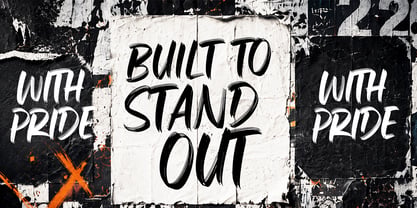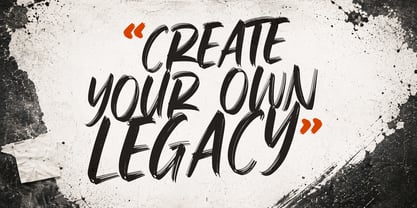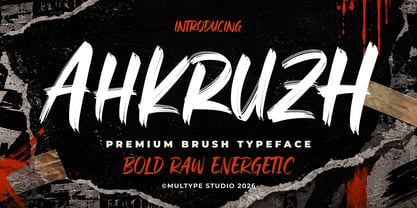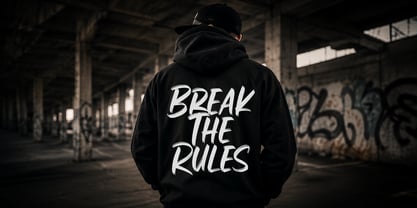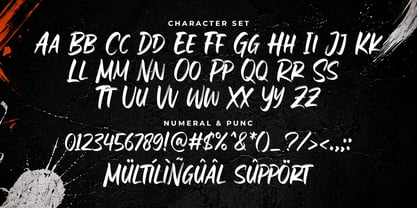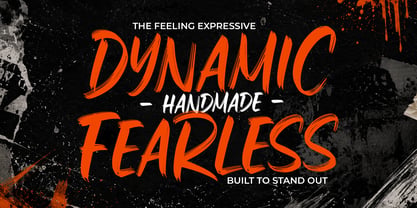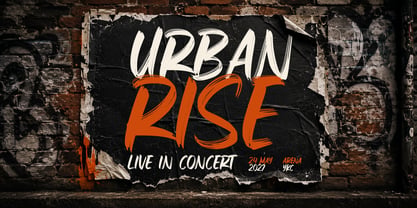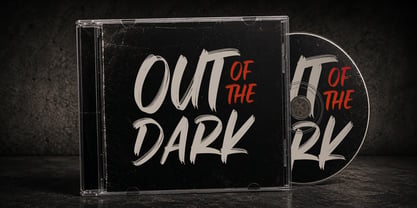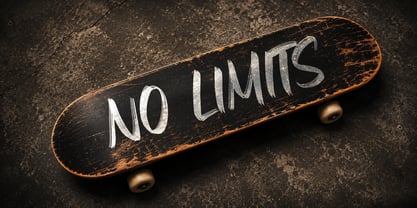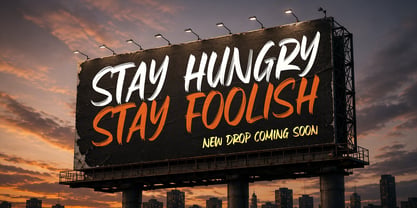
MLTP Ahkruzh
by Multype Studio
The MLTP Ahkruzh Font Family was designed by Mulia Yanto and published by Multype Studio. MLTP Ahkruzh contains 1 styles. More about this family
MLTP Ahkruzh is a bold brush display font that captures the raw energy of hand-painted lettering. Designed with expressive brush strokes, textured edges, and an authentic handcrafted feel, this font is perfect for creating eye-catching designs that demand attention. Whether you're designing sports branding, streetwear apparel, gaming graphics, music posters, YouTube thumbnails, or bold social media content, MLTP Ahkruzh delivers a powerful visual impact.
Each letter is crafted to preserve the natural movement of a real brush, giving your typography a dynamic and energetic personality. The font includes uppercase letters, numerals, punctuation, and multilingual support, making it suitable for creative projects.
Designers: Mulia Yanto
Foundry: Multype Studio